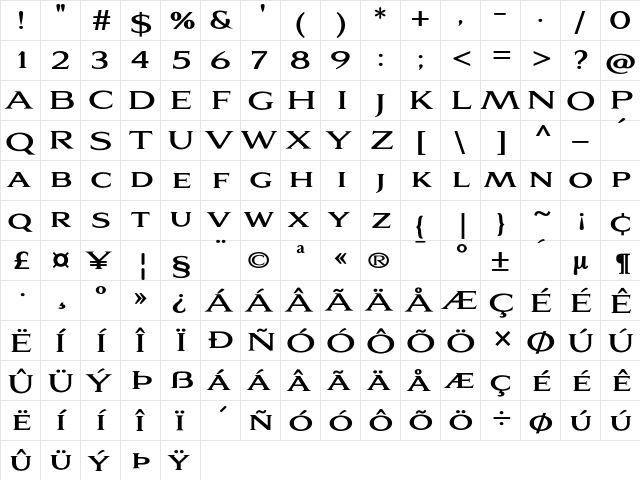
Aviano Serif Bold Bold
Design Context for Aviano Serif Bold Typeface
Aviano Serif Bold brings classic typographic sensibility to the table — its serifs and measured letterforms reflect centuries of print heritage. The heavy weight commands attention and anchors typographic hierarchies.
Pro Tip: Use Aviano Serif Bold for editorial body copy and considered headline work. Pair with a neutral sans for UI elements or captions to create a classic hierarchy.